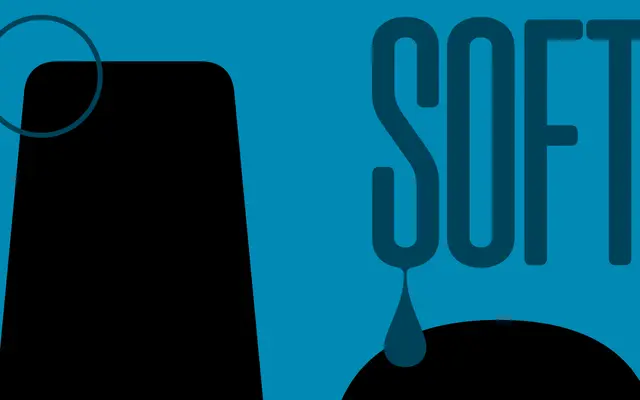
LargePoint Soft
A2-Type · Henrik Kubel, Matt Willey
A rounded headline sans developed by A2-Type in collaboration with Matt Willey, offering eight weights from Thin to Black for editorial display work.
The Soft variant of LargePoint trades the Sharp sibling's hard terminals for rounded ones, giving the family a distinct warmth without losing its headline energy. Eight weights run from Thin to Black, making it useful across cover lines, pull quotes and campaign headlines where visual hierarchy matters. Originally conceived as a dynamic display face, the suite format acknowledges that editorial designers need range, not just a single showstopper weight.
A rounded, high-contrast display sans with geometric underpinning, the Soft variant distinguishing itself from the Sharp sibling through softened terminals across an eight-weight range pitched squarely at headline use.